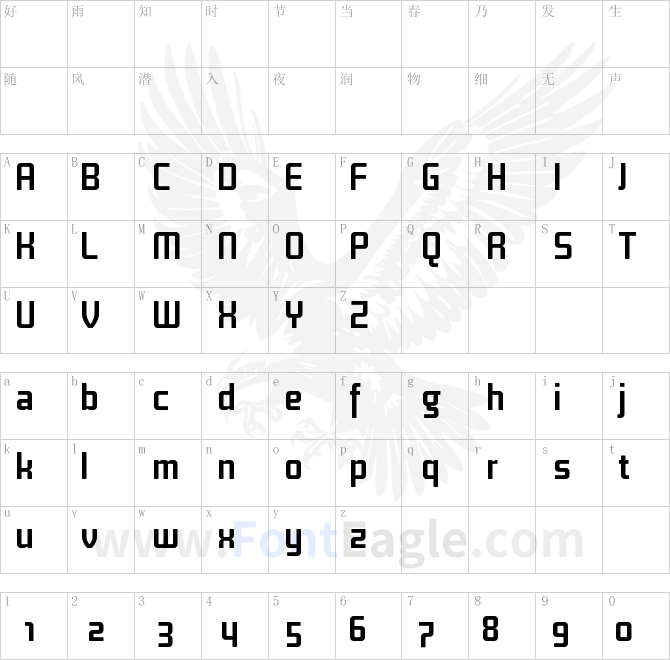
- Font name:TitanText
TitanText-Bold is a great font, widely used in graphic design, single-page menu design, poster design and other fields, and is deeply loved by designers.TitanText-Bold download.